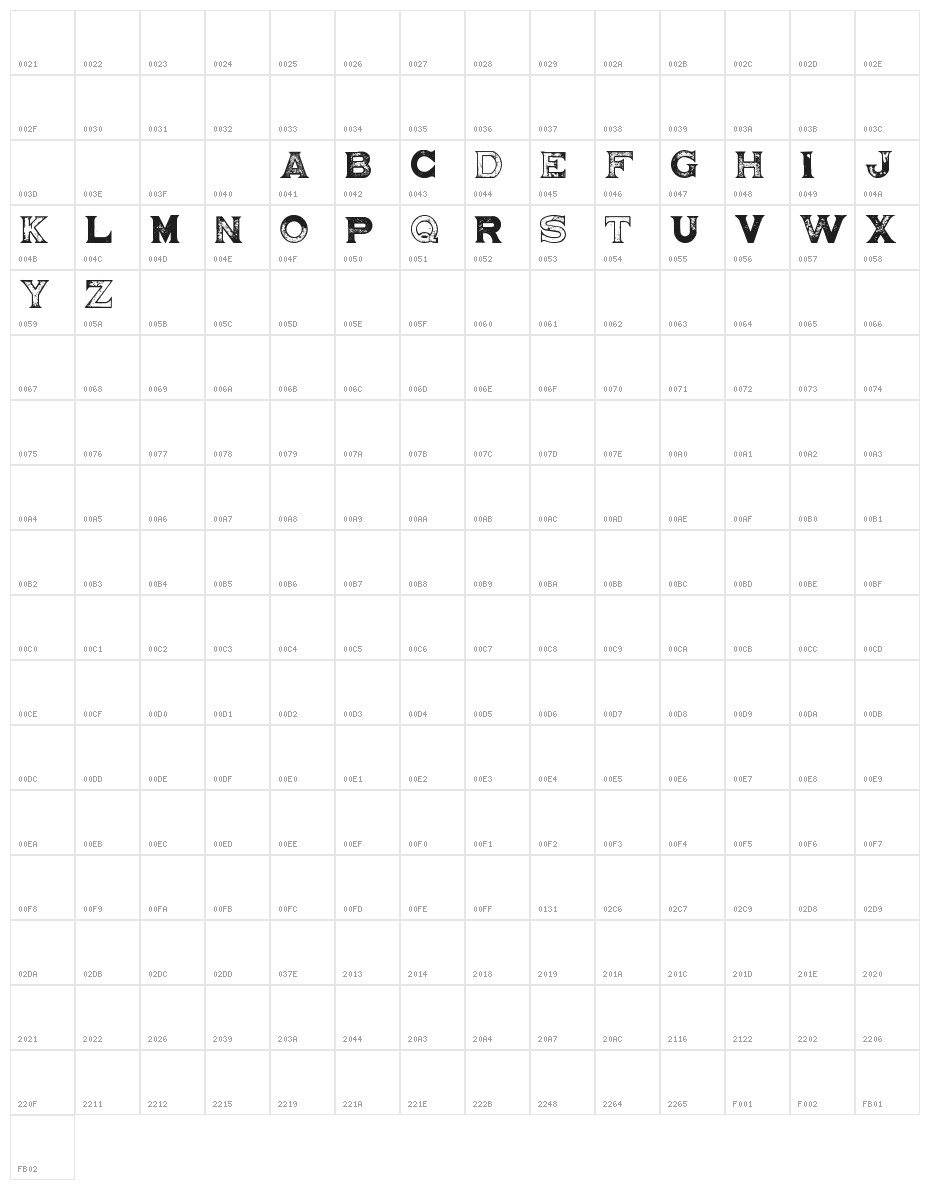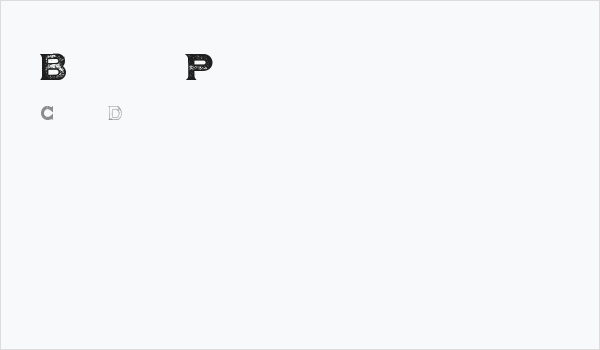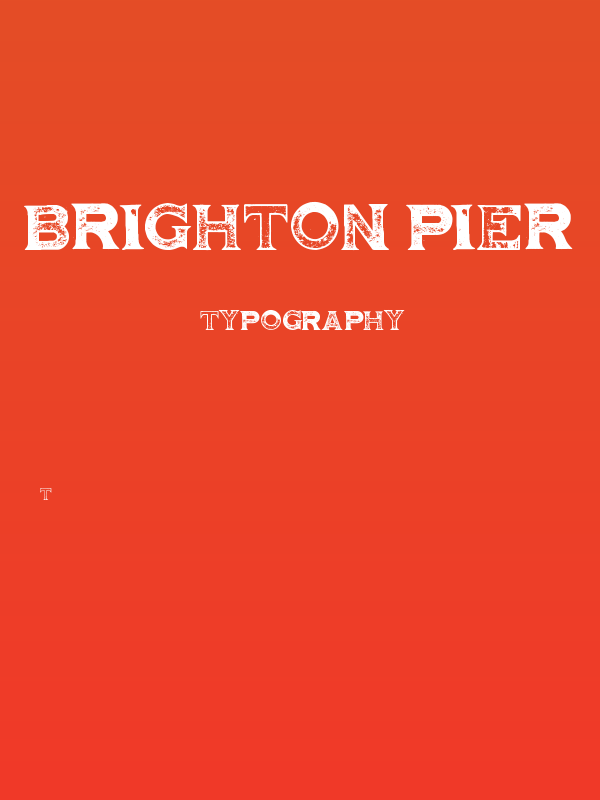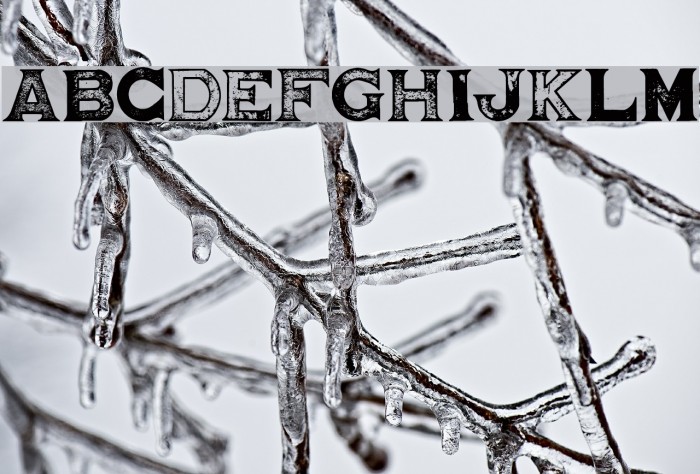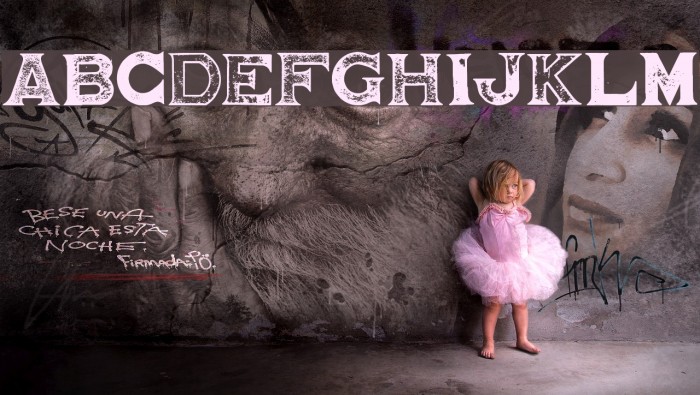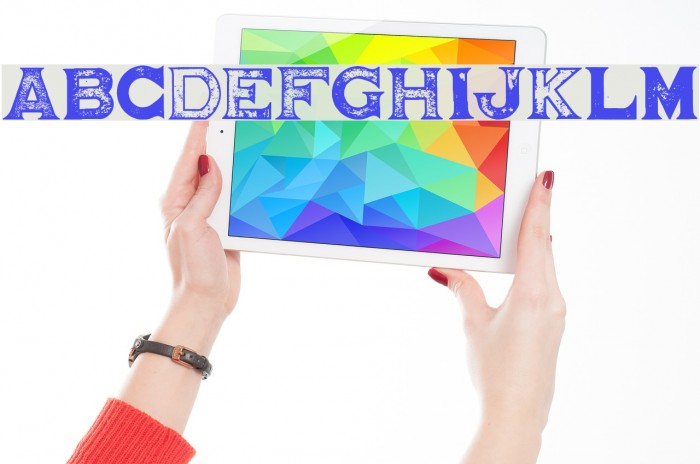
Brighton Pier Font
Brighton Pier Description
This font features a bold, distressed style with a vintage aesthetic. Each letter is uniquely textured, giving it a weathered and worn appearance reminiscent of old signage or posters. The uppercase letters are prominent and eye-catching, making them ideal for creating a strong visual impact. The design incorporates elements of both serif and slab serif styles, with thick strokes and slightly rounded edges. The texture within each character adds depth and character, making it suitable for projects that require a rustic or retro feel.
| Proposed Projects | Ideal for vintage-themed posters, retro branding, signage, and any project requiring a rustic aesthetic. |